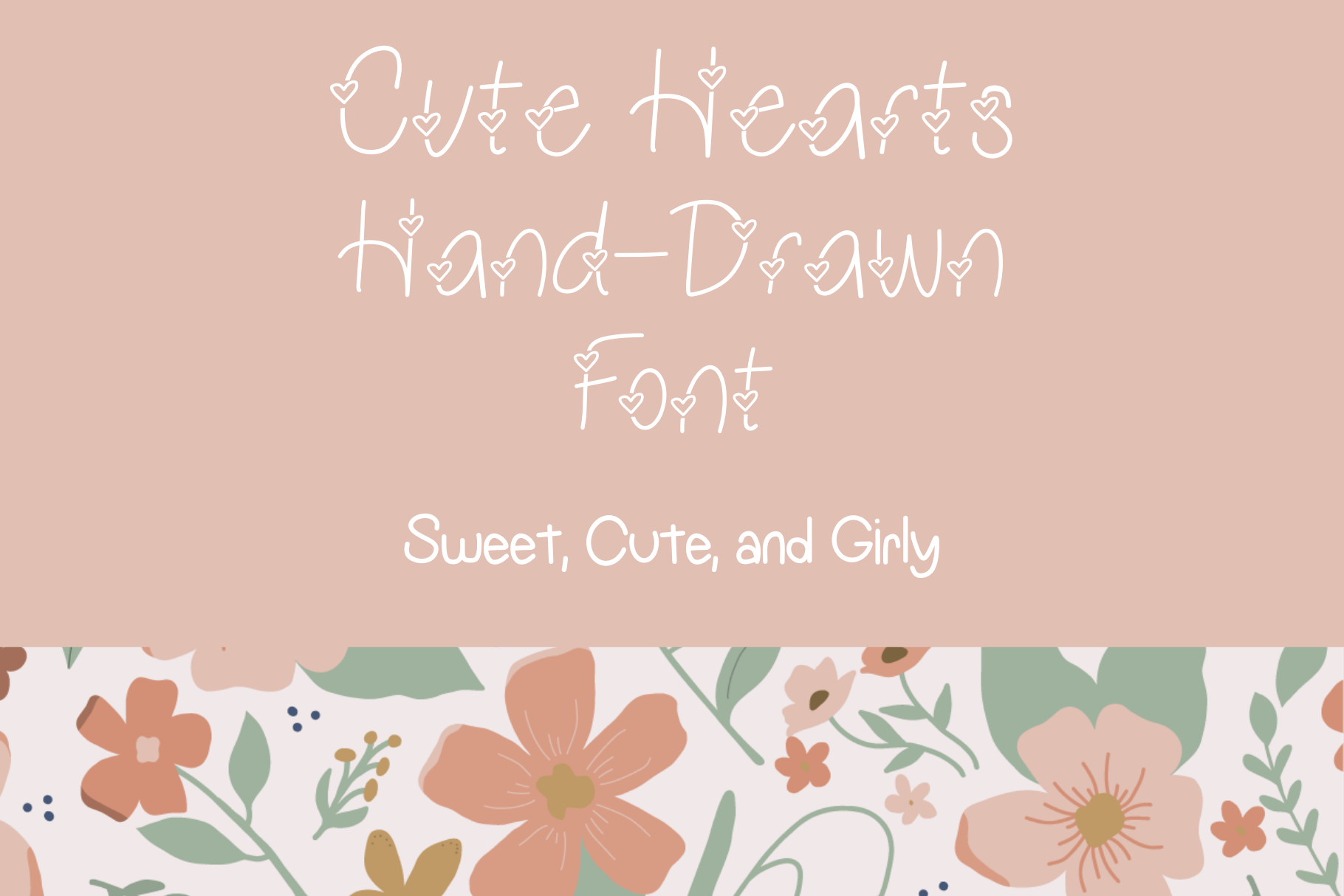
Cute Hearts Hand-Drawn Font
This is a fun and playful font featuring cute hearts on every letter. It's perfect for name tags, invitations, POD products, printables, wall art and more. This hand-drawn font is in otf format.